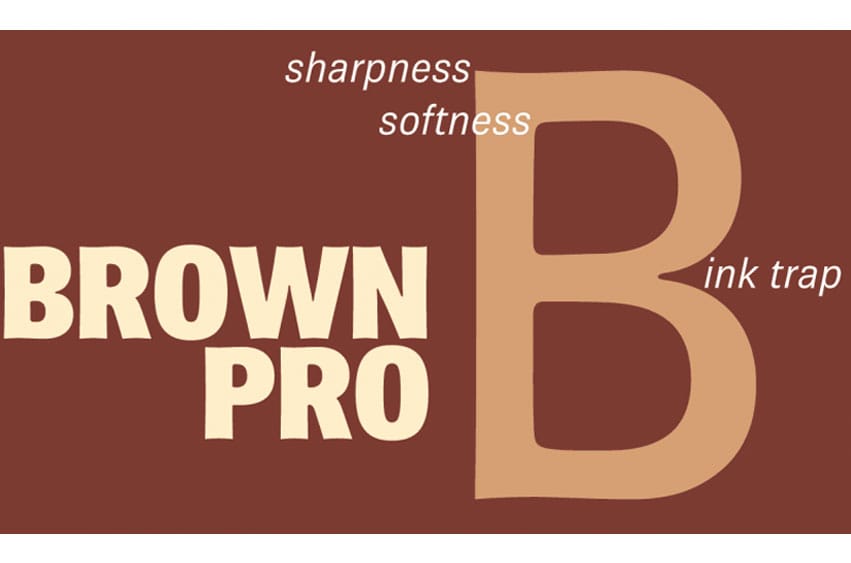
Brown Pro Font
Brown Pro Font Family is an elegant classic grotesque distinguished by its condensed proportions in capital letters.
These proportions complement both the lining figures as well as certain high-resolution materials with micro-detailed printing, like offset printing.